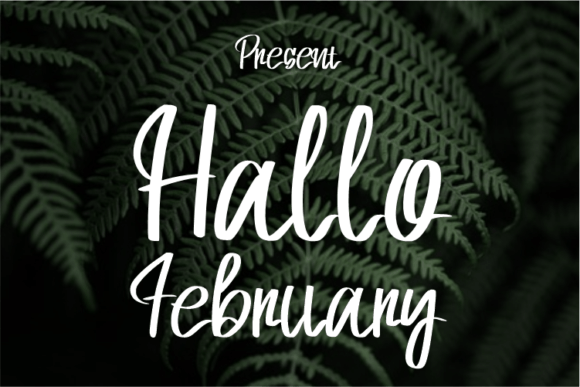
Journey into the realm of exquisite typography with Hallo February, a script typeface that embodies elegance and modernity. Its meticulously crafted characters, adorned with delicate dots, exude a charm that is both captivating and timeless.
Hallo February is the perfect companion for designers seeking to create an unforgettable impression. Whether you're working on a logo, book cover, or movie title, this font will add a touch of sophistication and intrigue to your project. Its versatility extends to fashion brands, magazines, clothing, and quotes, making it an indispensable tool for any creative professional.
With Hallo February, your words will transcend the ordinary and take on a life of their own. Imagine the impact of your logo, emblazoned with the distinctive characters of this font, leaving a lasting impression on your audience. Picture your book cover, adorned with the elegant curves of Hallo February, drawing readers into the depths of your story.
Embrace the boundless possibilities of Hallo February and embark on a creative journey that knows no limits. Let your imagination soar as you witness the transformation of your designs into works of art. Hallo February is more than just a font; it's an invitation to explore the world of typography and create something truly extraordinary.